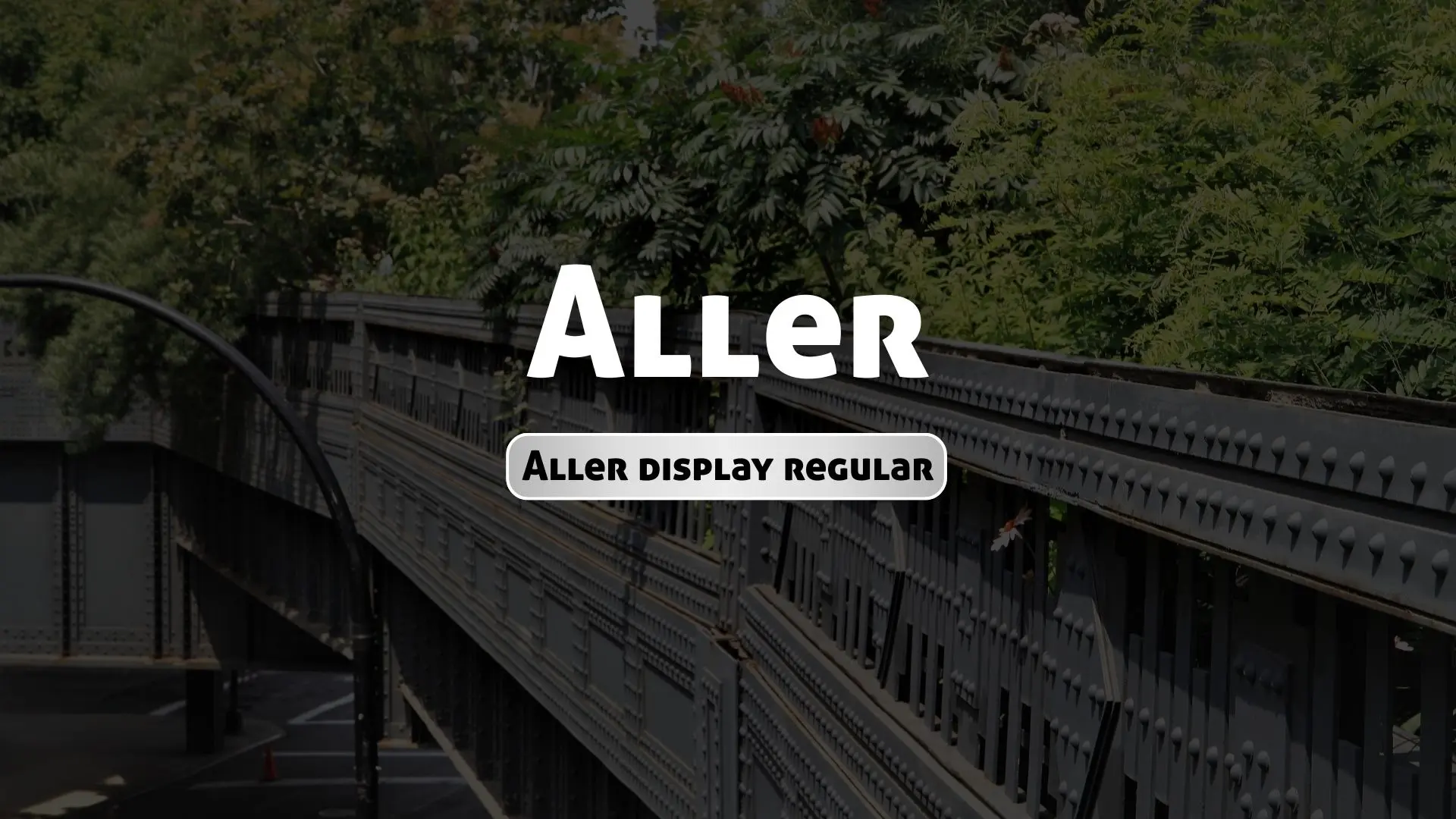
The font Aller Display Regular, designed by Marc Weymann, falls under the Display category & Aller font family. Its smooth, flowing letterforms make it a versatile choice for projects that require both elegance and readability. Aller is particularly well-suited for Web Design, Editorial Design, Educational and Academic Materials and Branding and Identity. With its balance of simplicity and decorative appeal, this font brings a polished touch to both personal and professional designs.